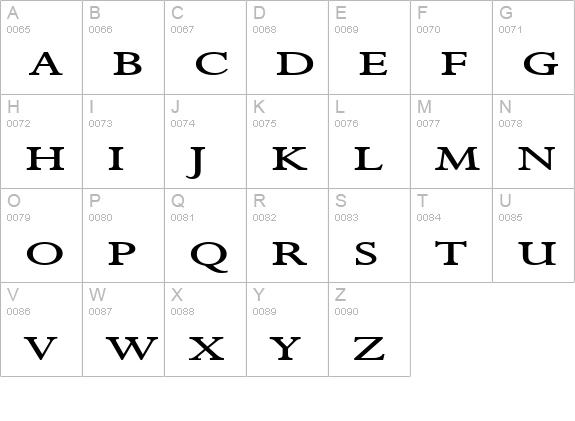
Rapid Extended Bold is a strong, high-contrast, extended-width variant in the Rapid typeface family \xE2\x80\x94 well suited to headlines, attention-grabbing titles, and strong calls-to-action.
Introducing Rapid Extended Bold font, an exceptional typeface that exudes confidence and strength. With its bold and powerful appearance, this font commands attention and leaves a lasting impact on any design project. Rapid Extended Bold font is perfect for those seeking a modern and bold aesthetic. Its clean lines and sharp edges make it ideal for headlines, logos, and any other design element that requires a bold and impactful statement. Whether you're designing a poster, website, or branding materials, this font will effortlessly elevate your work to the next level. But what makes Rapid Extended Bold font truly remarkable is that it is freely available for download at FontsMarket.com. Yes, that's right, this high-quality font can be yours without any cost. It's a rare opportunity to access a professional-grade font that not only meets your design needs but also fits your budget perfectly. Imagine the possibilities with Rapid Extended Bold font. From eye-catching headlines to attention-grabbing advertisements, this font will help you make a statement and stand out from the crowd. Its versatility ensures that it can be used across various design projects, making it a valuable addition to any designer's toolkit. Don't miss out on this exceptional font that combines boldness, professionalism, and affordability. Download Rapid Extended Bold font today from FontsMarket.com and unlock a world of possibilities for your design projects.